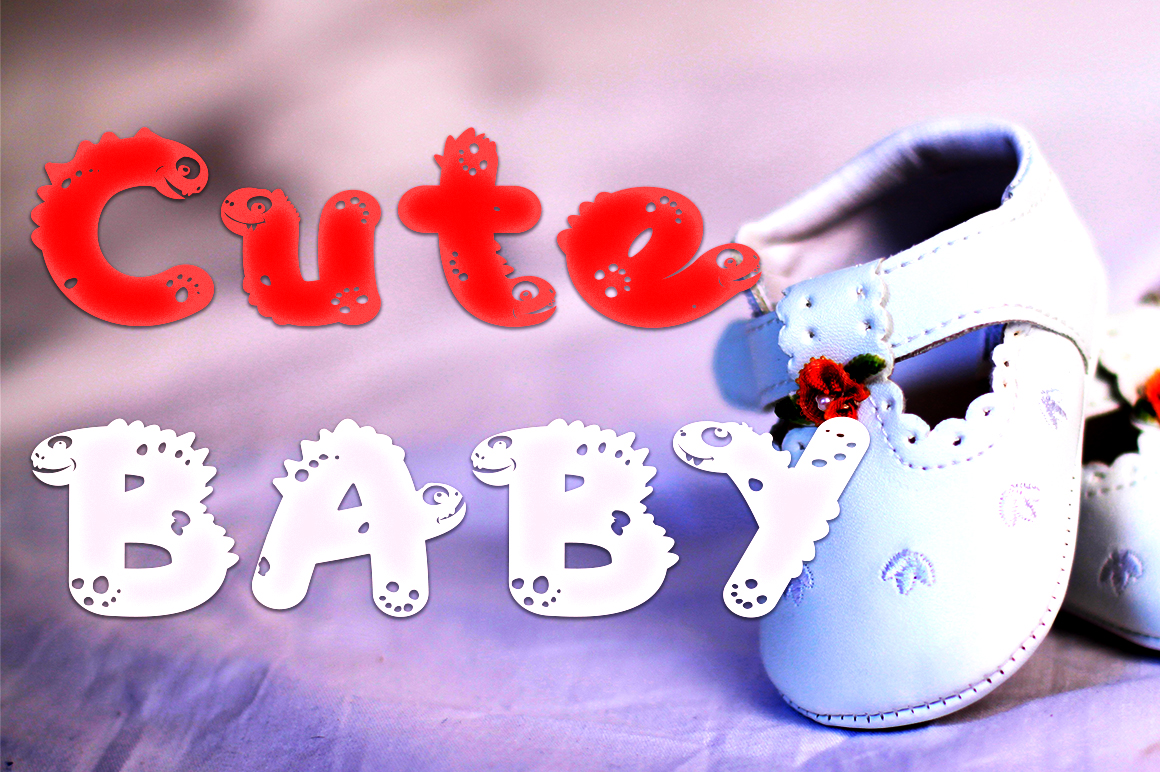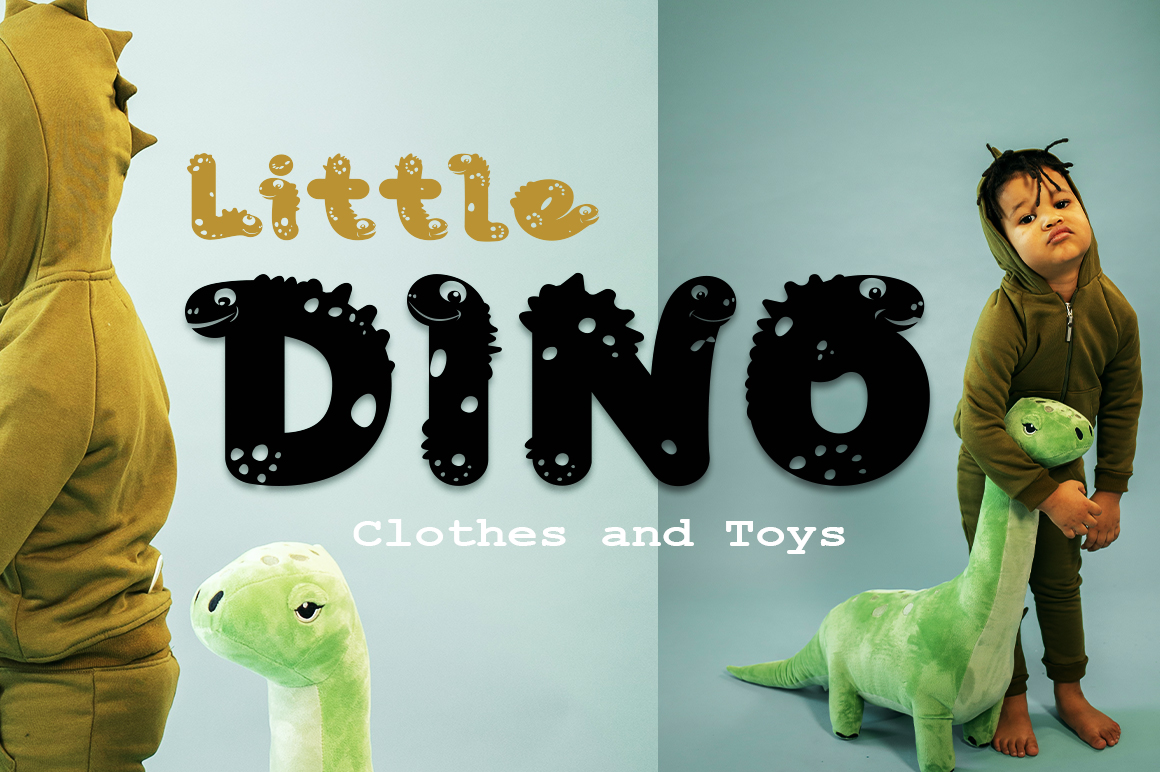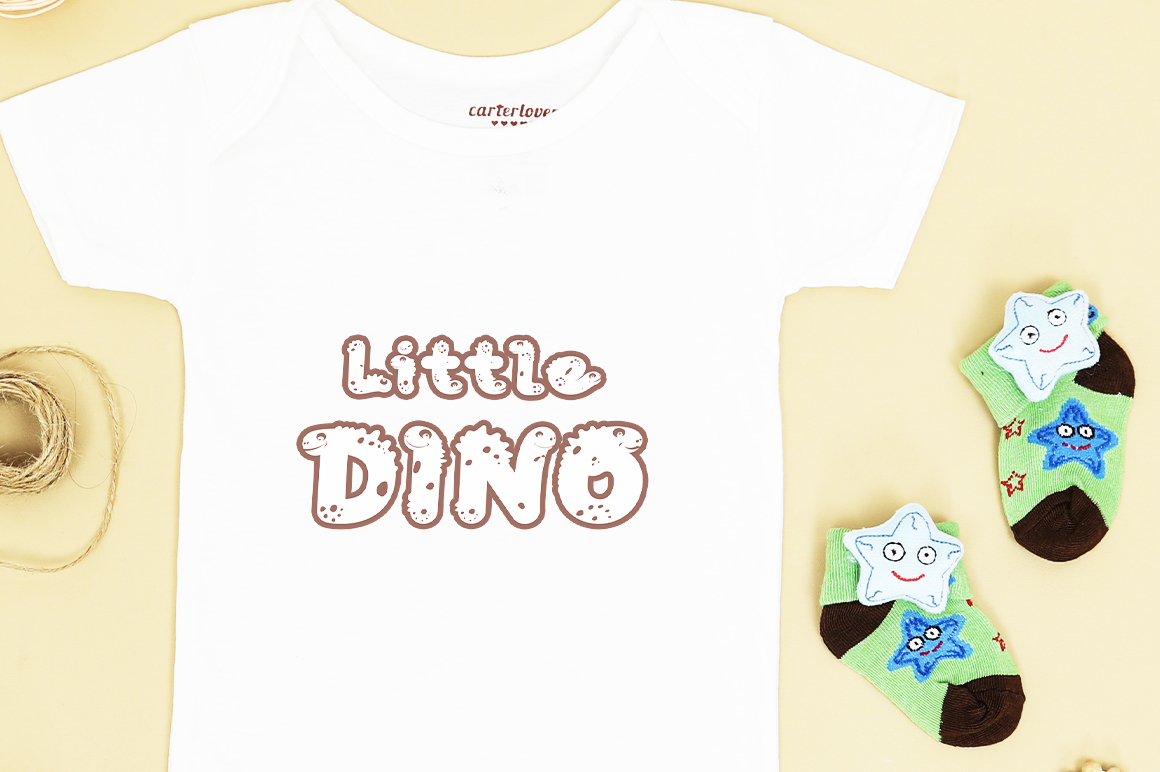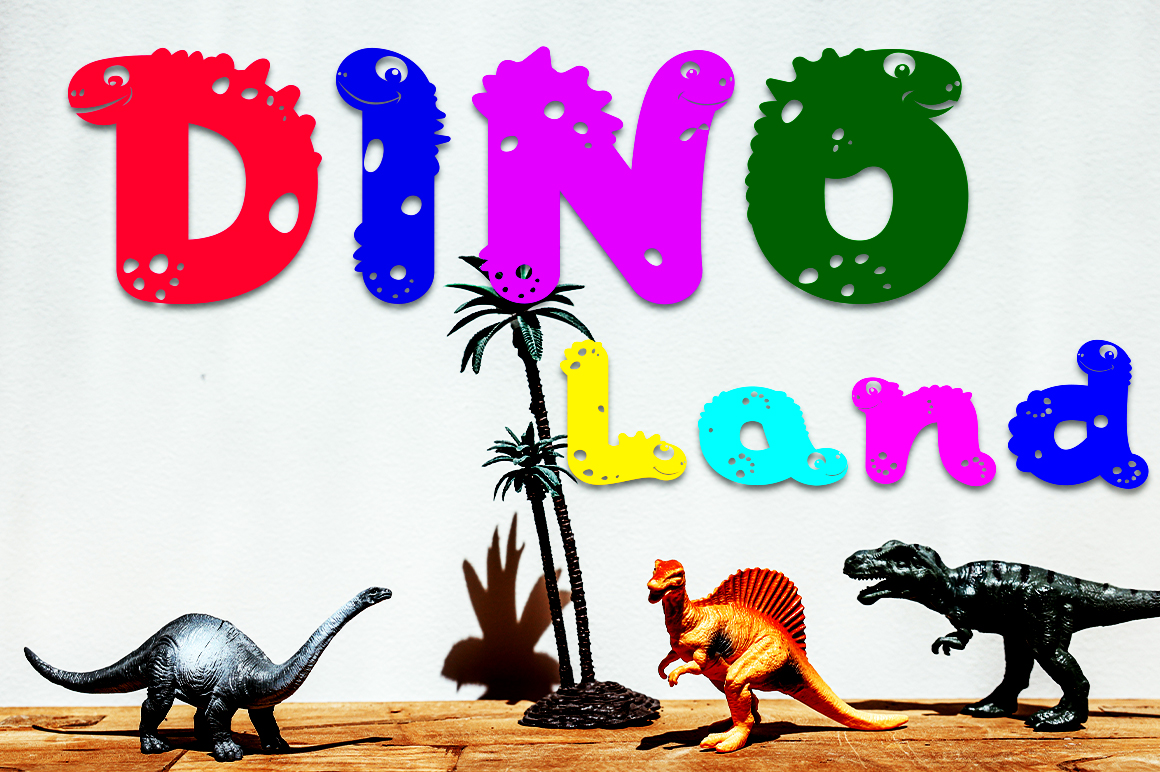
Lucky Dino Display Font
This is a cool display font created especially for kids projects. Every letter and number in this unique font is inspired by the cartoon dino and children will instantly love it.